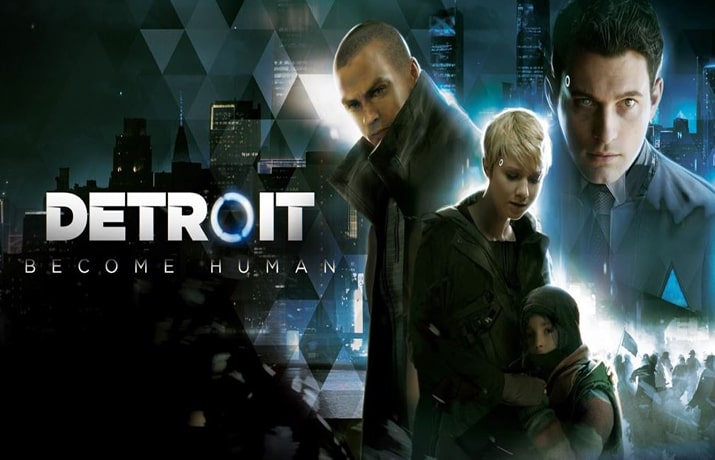
Detroit Become Human Font is an adventure video game. That was developed by Quantic Dream with the help of Mr. Simon Wasselin.
And published by Sony Interactive Entertainment. Basically, it is released for PlayStation 4 on 25 May 2018.
It became the most successful launch ever, selling over 2 million copies. Hence, this game has a huge fan following and huge popularity worldwide.
Gotham is the font used in the Detroit: Become Human logo. This font is developed by Tobias Frere-Jones and shared by Hoefler & Co.
Font Name:Gotham Font Family
Style:Fancy, Display, Various
Font Designer:Tobias Frere-Jones